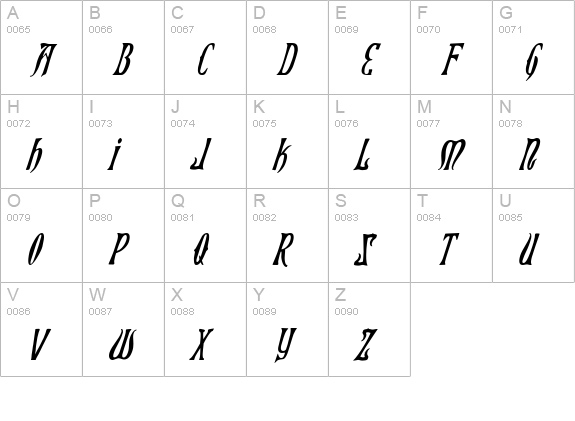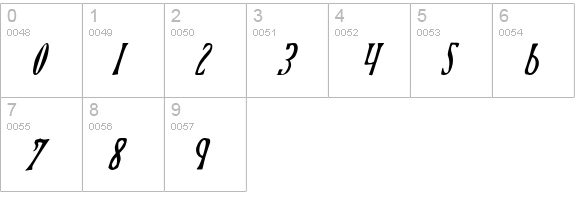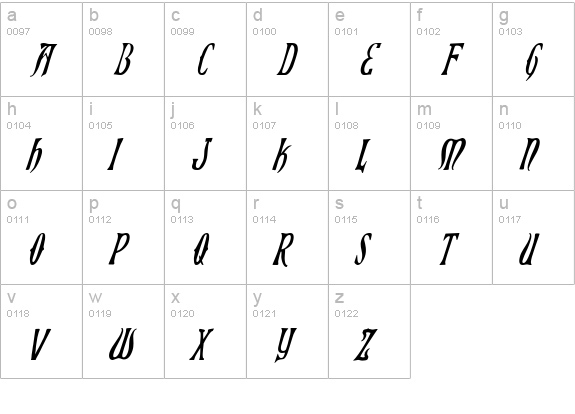
Xiphos Condensed Italic is a distinctive, condensed-width, italic variant in the Xiphos typeface family \xE2\x80\x94 well suited to design and typography projects.
Xiphos Condensed Italic is a sleek and modern typeface that exudes a sense of sophistication and elegance. Its slim and italicized design gives it a unique flair, making it perfect for adding a touch of style to any project. The Xiphos Condensed Italic font is versatile and can be used for a wide range of design applications, from branding and advertising to editorial layouts and web design. What makes Xiphos Condensed Italic even more appealing is that it is available for free download at FontsMarket.com. This means that you can easily access this stunning font without any cost, making it an excellent choice for designers looking to enhance their projects without breaking the bank. With its clean lines and contemporary aesthetic, Xiphos Condensed Italic is sure to make a statement in any design you choose to use it in.